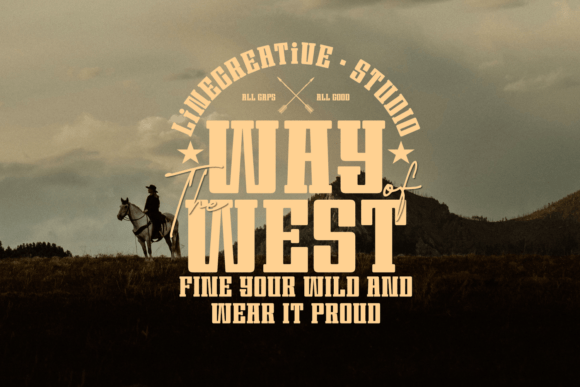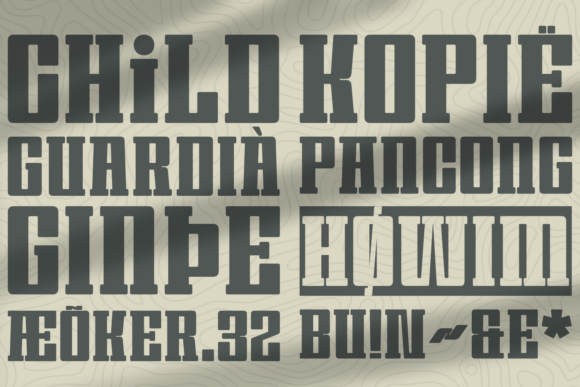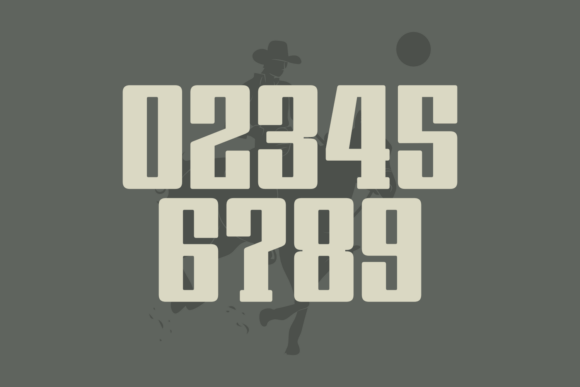
Introduction to Gracho Font
Have you ever stared at a blank canvas, wondering how to bring your creative project to life? You’ve spent hours brainstorming ideas, pouring over references, and searching for the perfect design resource – only to find the missing piece that sets your vision apart. That’s where Gracho Font comes in – a bold slab serif display font that exudes confidence and authority, guaranteed to elevate your design to the next level.
With its strong, industrial aesthetic and wide proportions, Gracho Font is a high-quality design resource that’s perfect for logos, posters, and branding that require a commanding visual presence. Its sturdy structure and masculine tone make it an ideal choice for designers seeking a timeless and authoritative visual identity. Whether you’re working on a creative project that demands a bold statement or simply want to add a touch of sophistication to your design, Gracho Font is a valuable addition to your design toolkit.
Key Features of Gracho Font
- High-quality design for creative projects, ideal for logos, icons, and branding materials.
- Includes 6 styles with different weights and widths, providing flexibility for designers to create unique typography.
- Designed with a modern and sleek aesthetic, making it perfect for contemporary design projects.
Honest Review: Gracho Font
The Gracho Font is a versatile design resource that can be used for a variety of projects, from web design to print materials. It features a transparent background, making it easy to use in conjunction with other design elements.
- High-quality design that looks great at any size
- Transparent background allows for easy customization
- Not as extensive a character set as some other fonts
- May not be suitable for use in very small sizes
Overall, I was impressed with the Gracho Font. While it may not be perfect, it’s a great design resource for designers working on a budget or looking for a high-quality, free font.
Tips for Getting the Most Out of Gracho Font
Here are a few tips for getting the most out of the Gracho Font: use it with a transparent background to create a sense of depth and elegance, experiment with different font sizes and styles to create visual interest, and pair it with other high-quality design resources to create a cohesive look.
Common Use Cases for Gracho Font
The Gracho Font is perfect for a variety of creative projects, including social media graphics, presentations, logos, and product packaging. It’s also great for creating invitations, menus, and other print materials that require a touch of elegance and sophistication.